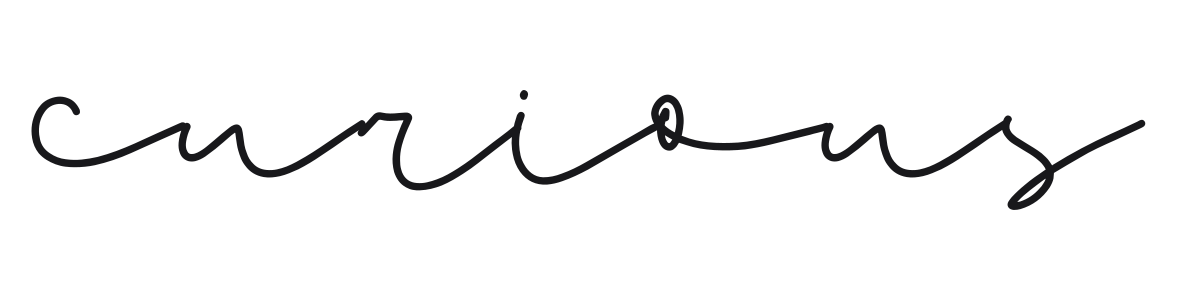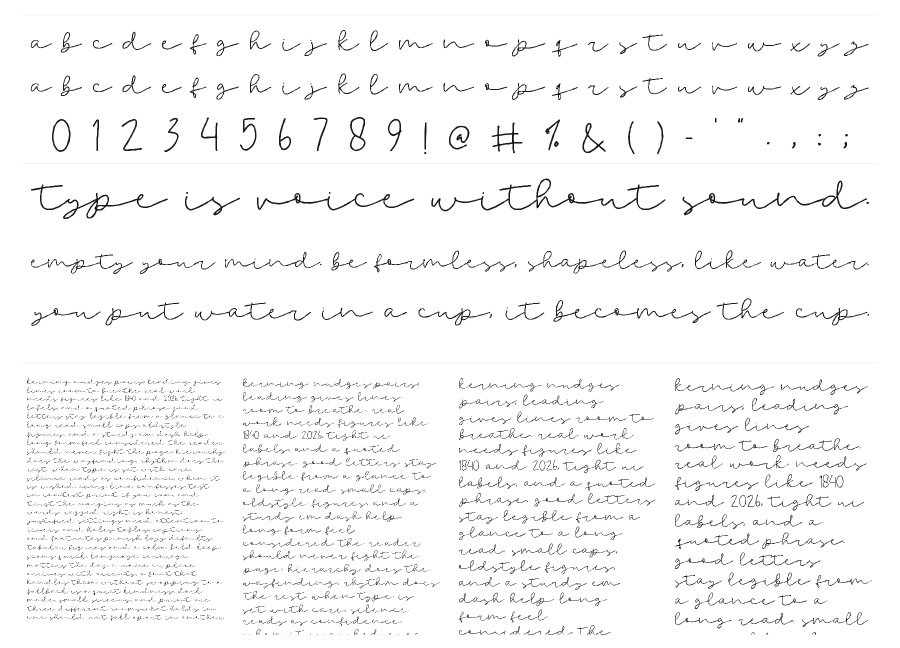
Curious
Curious is a thin connected handwritten script with a continuous, signature-like flow and delicate monoweight strokes. The gently undulating baseline and long sweeping connectors give it an effortless, airy quality that sits between casual and refined. It reads well at large sizes for wedding stationery, branding, and lifestyle packaging.